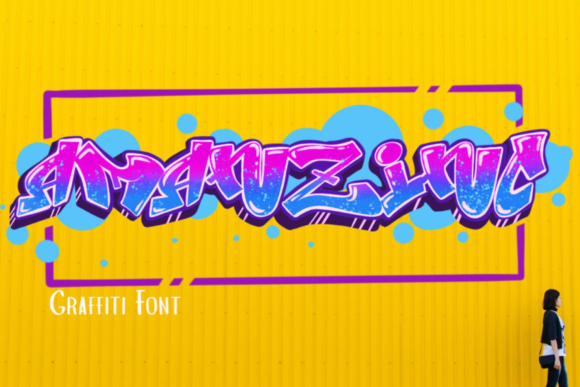
Journey into the world of street art with Amanzinc Graffiti, the display font that captures the raw energy of urban culture. Unleash your creativity and transform your designs into captivating masterpieces with this awe-inspiring font.
Picture this: bold, striking letters dancing across your T-shirt designs, creating a visually captivating statement that demands attention. Or envision your social media posts, flyers, and posters radiating with an edgy, urban vibe that resonates with your audience.
Amanzinc Graffiti is not just a font; it's an artistic expression that speaks volumes. Its unique characters, inspired by the vibrant streets of metropolises, add a touch of authenticity and originality to your projects. Each letter is meticulously crafted to embody the essence of street art, with rough edges and dynamic flow that mimics the strokes of a spray can.
With Amanzinc Graffiti, you're not just downloading a font; you're stepping into a world of artistic expression, where creativity knows no bounds. Whether you're a seasoned designer or just starting out, this font will elevate your work to new heights.
So, dive into the world of street art and let Amanzinc Graffiti ignite your creativity. Transform your designs into captivating expressions that leave a lasting impression. Embrace the power of urban culture and let your imagination run wild.